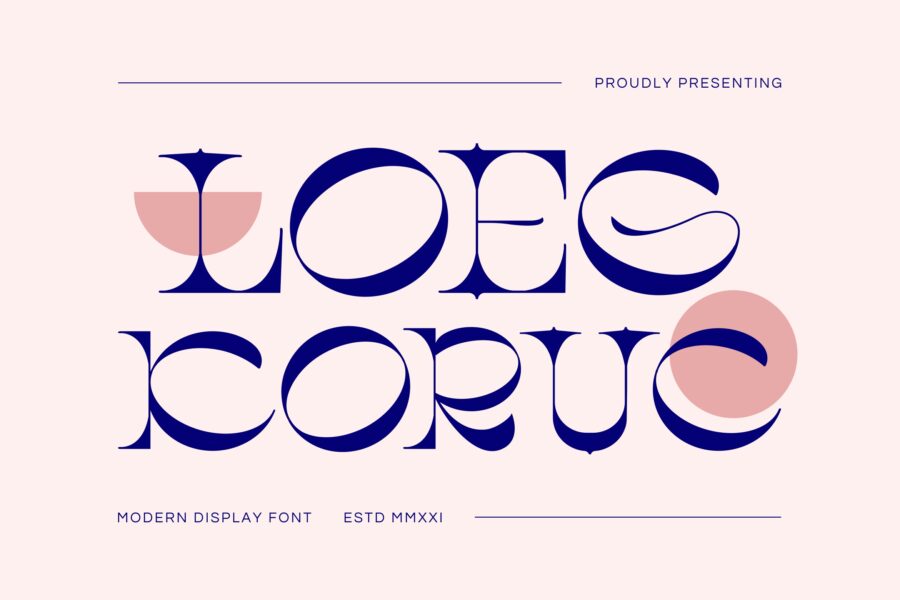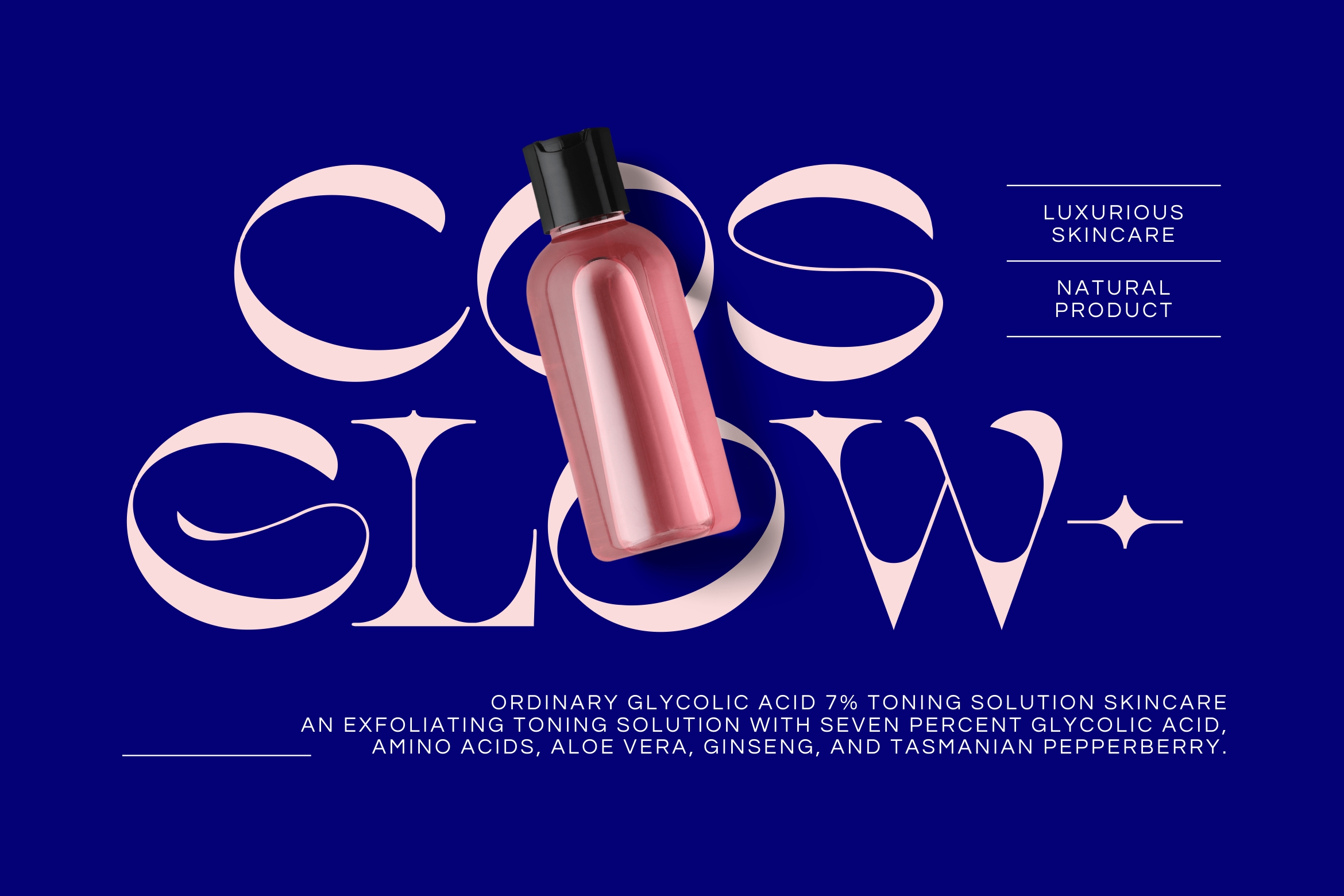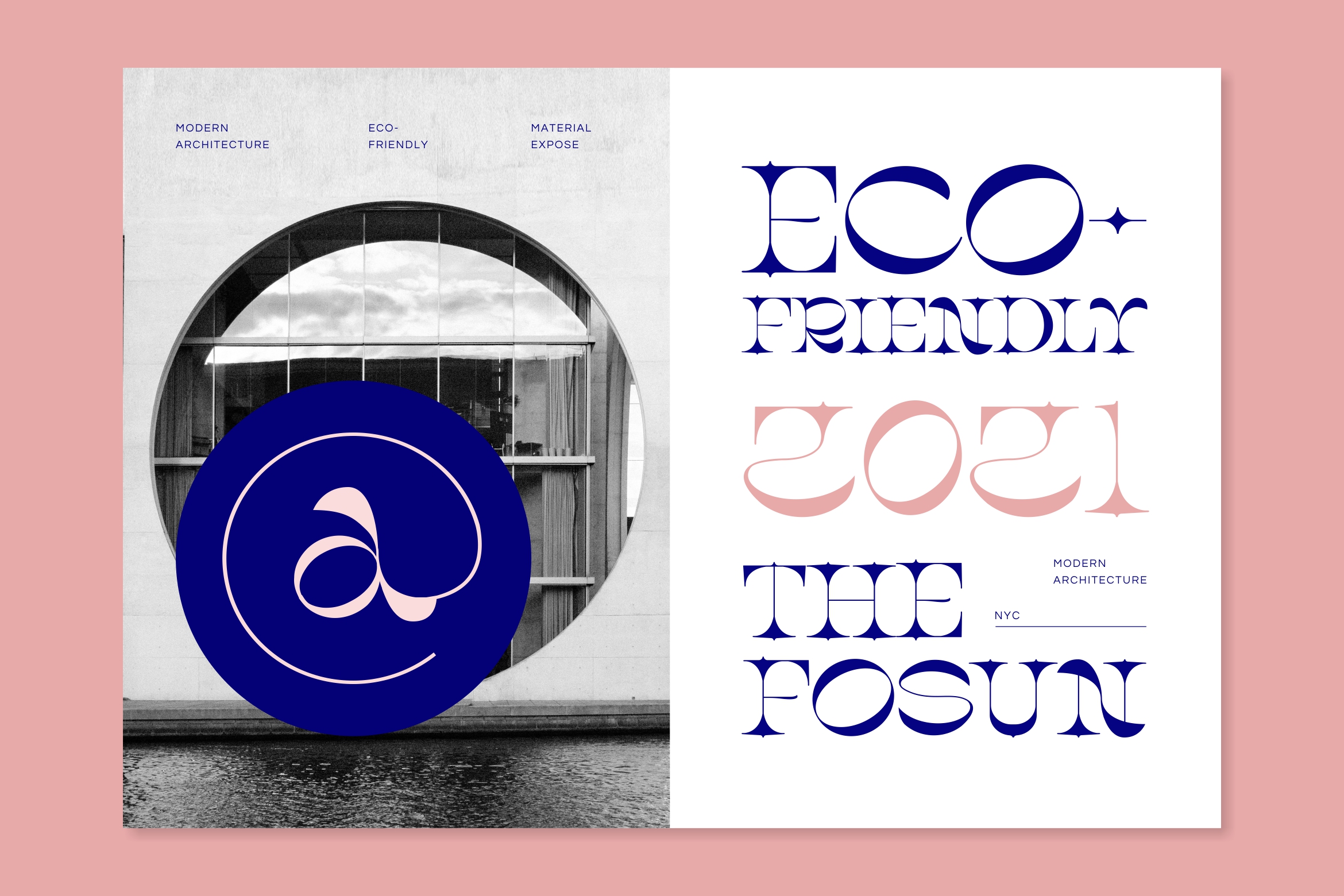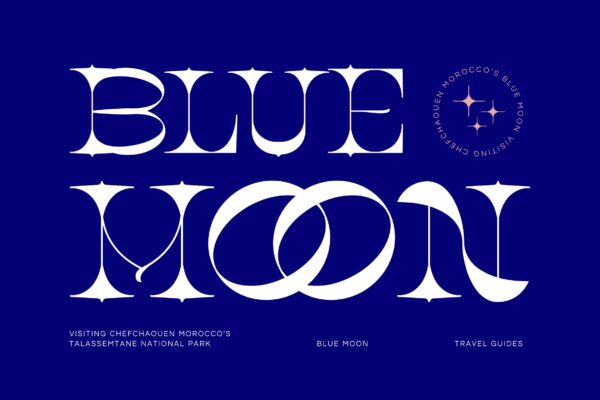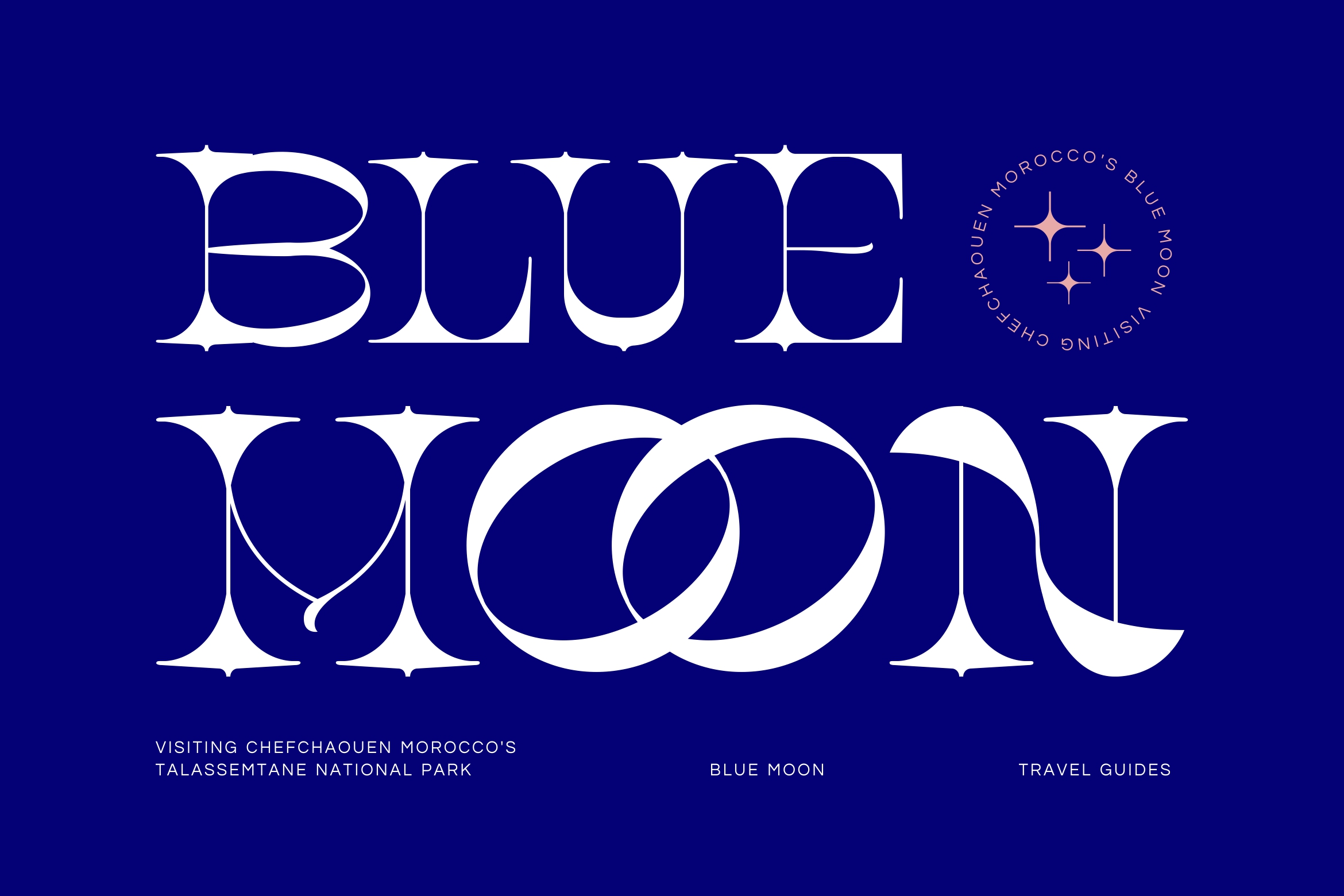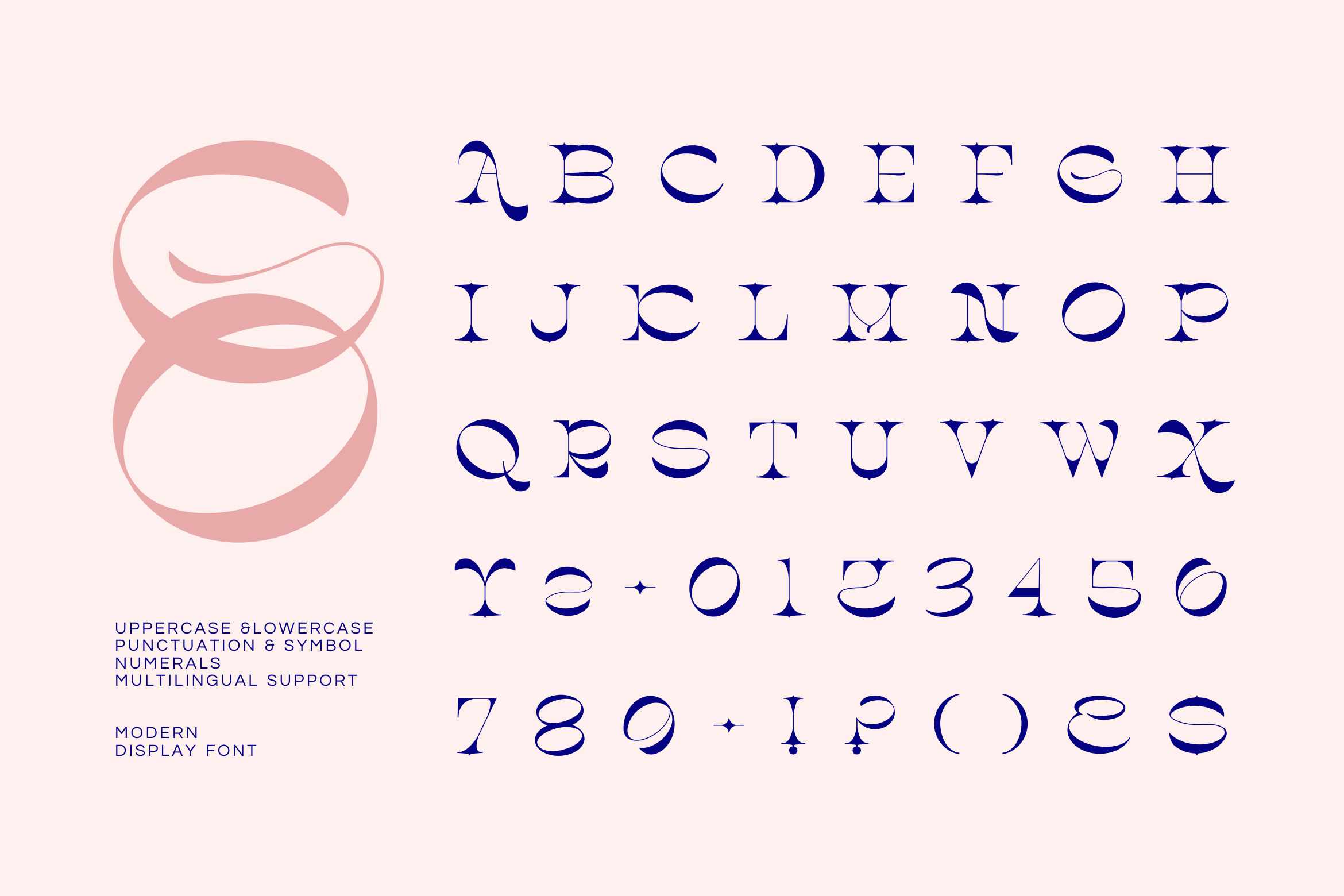
Loeg Koruc is a modern display font that blends artistic elegance with sharp, geometric flair. The font’s unique character shapes, high contrast strokes, and refined curves make it ideal for high-end branding, fashion editorials, and packaging. Loeg Koruc carries a sense of sophistication while still remaining approachable and experimental in form.
With full uppercase, lowercase, punctuation, numerals, and multilingual support, Loeg Koruc is versatile and functional across various media. Whether used in logo design, cosmetic branding, or contemporary art direction, this font creates a statement of luxurious identity with a fresh, creative edge.